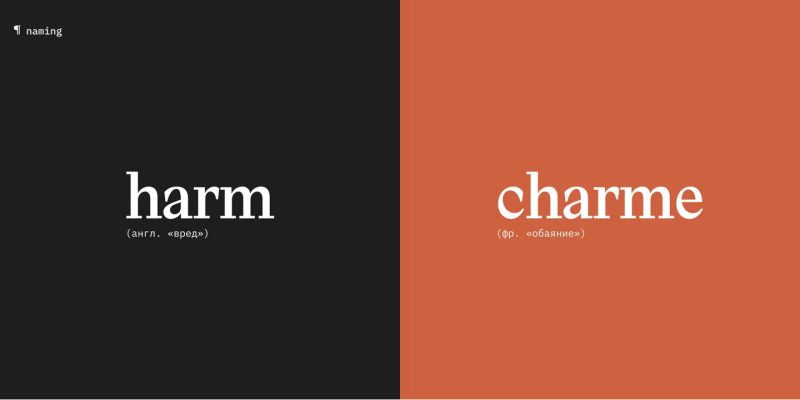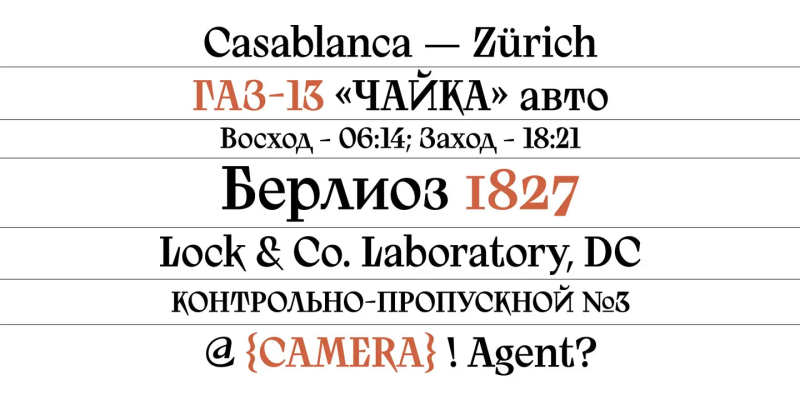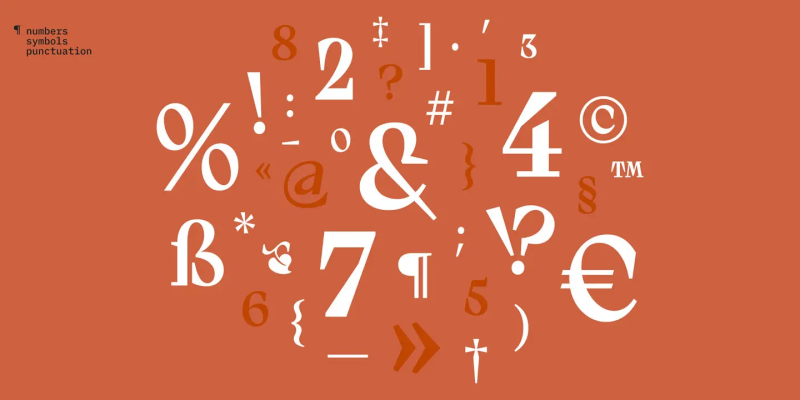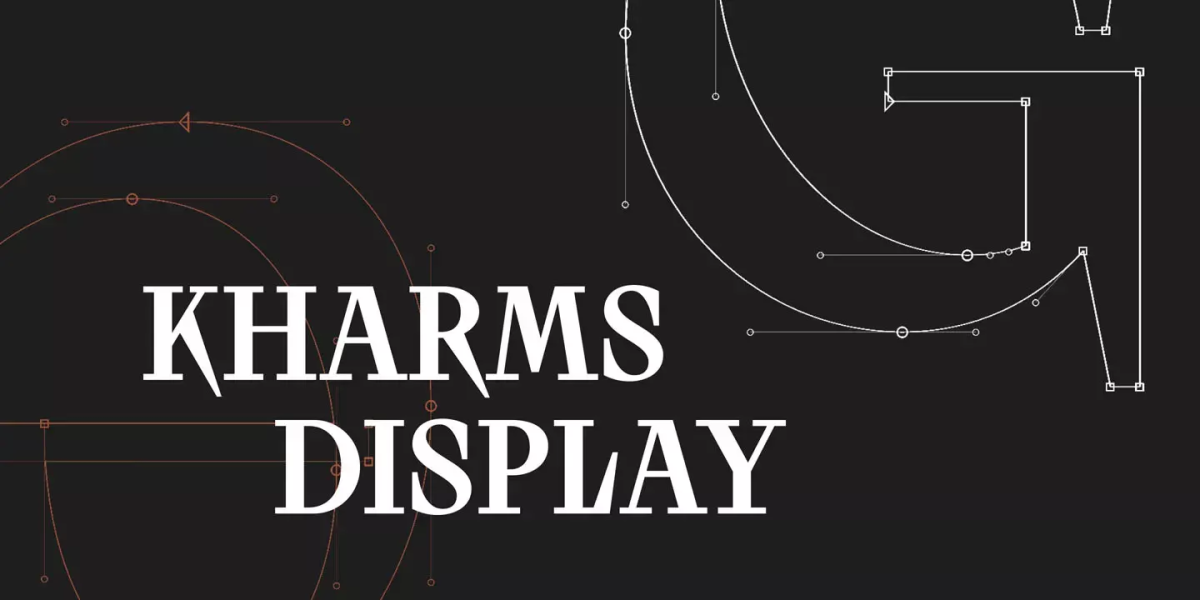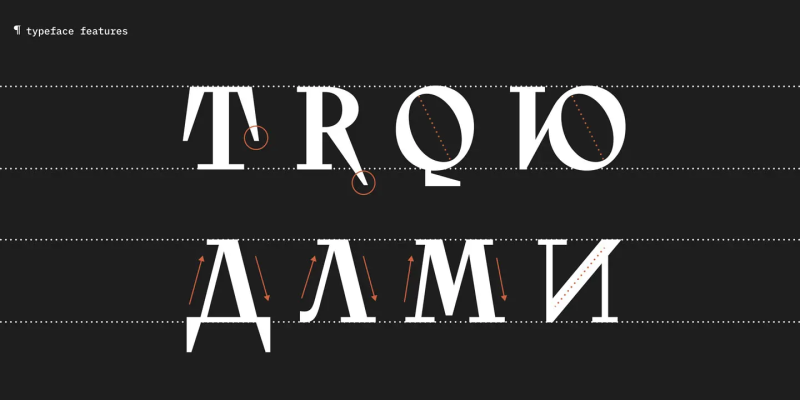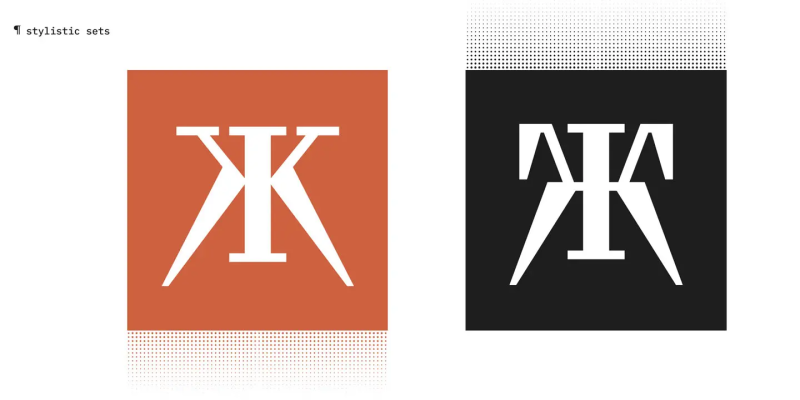
Kharms Display Font
Kharms is a charming and eccentric serif typeface. It was inspired by the title lettering in a series of soviet book covers from the first half of XX century. Strong and rough serifs in Cyrillic Б and T with tense counters set the style of Kharms. The concept of making something both savage and elegant has defined the name of the typeface. Daniil Kharms is a great absurdist poet. His surname is consonant with the English word “harm” and the French word “charme” (charm). This contradiction is perfectly consistent with the character of the typeface.
Kharms character is in its details: beak-shaped serifs, elongated and sharp legs in R K Ж Я, additional sharpness due to the triangular shapes of the letters Л, Д, M, dynamic tilt of counter in round letters and the letter И with reverse contrast, as a tribute to the literary background of the typeface. A modern approach to these details makes the typeface relevant and expressive. Designed by Ilya Buravchikov.
Kharms Display Font works across print and screen, from headlines to short paragraphs.